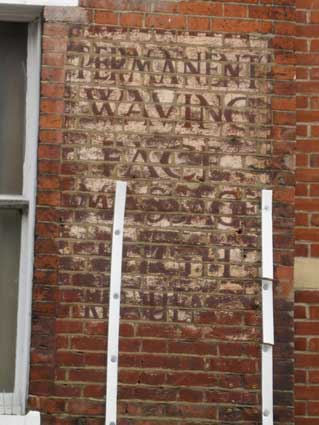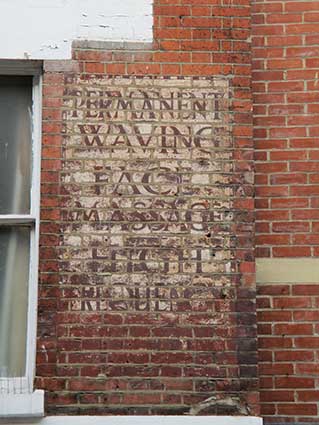
Wootton's The Hairdresser / R. Boby Engineer
Woottons Cure For Corns continues the story on the east of the town.
7 Tavern Street
In Tavern Street, opposite the entrance to The Walk (see our Plaques page) you can find several panels which someone has done their best to expunge. They still (just!) advertise the wares of a previous shop - it is Woottons the hairdresser [thanks for the information to Trevor an ex-Ipswichian exiled in Norfolk (left the town in 1957) from the Guestbook].
Ipswich Historic Lettering: Woottons long-shot2012 image
Here are the five panels on the first floor of 7 Tavern Street, once the home of a great emporium run by the Wootton family, selling fancy products to the gentry. Now it's the Carphone Warehouse. At the time of these photographs an estate agent's board obscured part of the lettering.
What an odd litany of services and goods Wootton's must have provided...
Ipswich Historic Lettering: Wootton's 3-Ipswich Historic Lettering: Wootton's 4
PANEL 1 (above left):
'LEATHER(?)
GOODS
-
STATIONERY
-
FOUNTAIN
PENS'
-
FANCY
GOODS'
PANEL 2 (above right):
TOYS &
GAMES
-
FANCY
CHINA
-
EBONY
GOODS
-
CUTLERY'
Ipswich Historic Lettering: Wootton's 5-Ipswich Historic Lettering: Wootton's 6
PANEL 3 (above left):
'HOT
BATHS
(in larger, white, sans serif font)
---
LADIES &
GENTS
TOILET
SALOONS'
PANEL 4 (above right):
'HAIR
BRUSHES
-
FANCY
COMBS
-
TOILET
GOODS
-
(word illegible behind burglar alarm)'
Ipswich Historic Lettering: Wootton's 7[All five images courtesy Dave Riseborough] Ipswich Historic Lettering: Wootons plus2013 image
PANEL 5 (above) is obscured by the estate agent's sign, but the 2013 view (above right) reveals a little more of the lettering:
'PERMANENT
WAVING
-
FACE MASSAGE
-
HIGH
FREQUENCY
...'
We're reasonably sure on 'FREQUENCY'. The final word has been covered in brick-red paint: 'TREATMENTS', perhaps? What sort of high frequencies might be involved?
Ipswich Historic Lettering: Wootons plus 22019 image
At last in 2019 the horrible plastic estate agent's sign strips have been removed. Another look at the word below 'Frequency' reveals an 'N' below the 'CY' of 'Frequency', possibly with an 'I' before it, so the last word might end in 'ING'.
[UPDATE 3.9.2024: having been empty for a while, Holland & Barrett have moved into the shop with planning permission to convert the upper floors into four flats. Let's hope the builders respect the lettering and the large slab of whitewash between the first and second storeys, which is currently peeling a bit, beneath which lies the large 'WOOTTONS' sign.See the monochrome photographs below.]
History of Woottons
The large white-painted area above the first storey windows probably bore the company name (see the 1958 photograph below to confirm this). Deciphering these panels has probably damaged our eyesight for good (and we're quite open to correction about the interpretation). The panels all display a pale or white background with maroon chequer border and decorative maroon coloured lettering which has been expanded or condensed to fit available spaces. The interlinking double-'O's (as in 'GOODS' are characteristic. Suffolk Record Office has an original advertisement for "Wootton's Shilling hollow-ground razor" [Wootton, George, fl 1890, razor seller, of Ipswich, Suffolk] and the same proprietor is listed as at 7 Tavern Street, Ipswich and 2 Bent Hill, Felixstowe. So who fancies a face massage after your hot bath - and perhaps you'd like to browse our catalogue of cutlery and fountain pens?
Ipswich Historic Lettering: Wootons periodc.1890s
The above photograph is apparently the interior of George Wootton's barber shop in Tavern Street; date unknown. Presumably the gent reading the paper is Mr Wootton himself awaiting his next customer. We love the high-tech pulley system for transmitting rotary power from a motor at the rear of the shop, via a shaft mounted near to the ceiling and down to each hairdressers' clippers.
[UPDATE 27.8.2017: 'Hello, your photographs of the old Wootton's shop in Ipswich have been drawn to my attention. The shop was set up by my great grandfather George Wootton in the latter part of the 19th century. He had moved from Aylesbury, where he had been a hairdresser. He died aged 47 leaving 10 children and the eldest boy aged 19 – also called George – took over running the shop. Looking at the … photo … it was taken in the late 1800s and is of our great grandfather so it must have been the second George.
Under George the business grew and they set up other shops, including at Felixstowe and Clacton, all run by various of the brothers. My grandfather who was the youngest of the boys ended up with the business and this was taken over by my uncle who set up another branch in Norwich. My father was also involved and they ended up specialising in shaver repairs, as there was so much competition on the high street for all the other services they offered at one time! The business was eventually sold on in the 1970s.
The transfer on the top hopper reads: 'Manufactured by ROBERT BOBY [LIMITED?], Bury St Edmunds England, Patents Applied For'. Which shows the reach of some of these manufacturing companies.